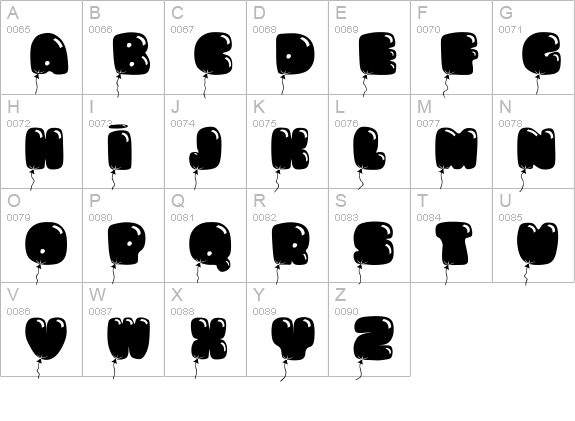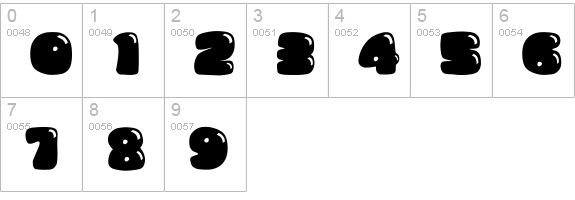
Bumbazoid Font Details
Introducing the captivating and whimsical Bumbazoid font, a playful typeface that exudes charm and personality. With its quirky and unique design, Bumbazoid is perfect for adding a touch of fun to your projects. This font is sure to stand out and make a statement, whether used for branding, packaging, invitations, or any creative endeavor. Best of all, Bumbazoid is available for free download at FontsMarket.com, making it easily accessible for designers and creatives looking to add a touch of creativity to their work. Don't miss out on the opportunity to enhance your designs with the delightful Bumbazoid font today!